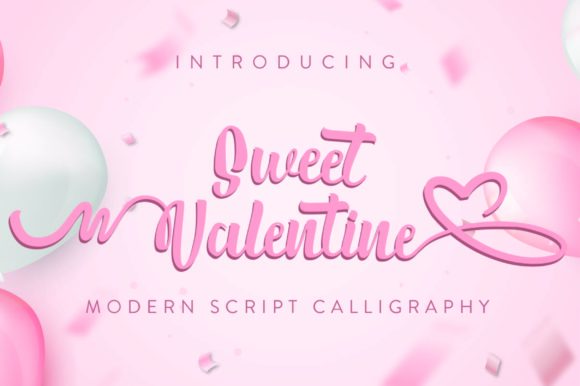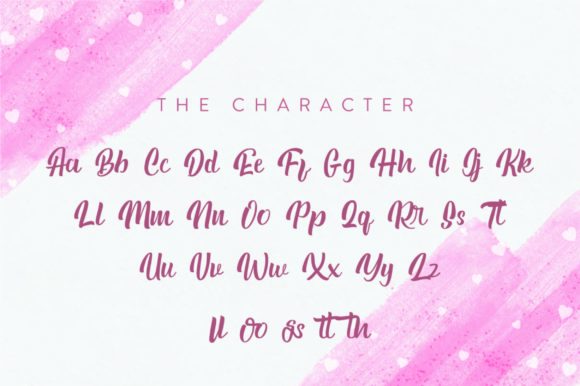
About Sweet Valentine Font
Introducing “Sweet Valentine” – a beautiful and dreamy script font that captures the essence of romance and elegance. With its enchanting design, this font adds a touch of whimsy to various design projects. Whether it’s wedding invitations, thank you cards, weddings, greeting cards, logos, or other personalized designs, “Sweet Valentine” enhances every creation with its stunning and heartfelt style.
The graceful and flowing strokes of “Sweet Valentine” create a sense of beauty and charm in every letter. This font is PUA encoded, allowing easy access to all the glyphs and swashes it offers. With its wide range of decorative elements, “Sweet Valentine” enables you to customize your designs effortlessly, adding a personal and unique touch.
When used on wedding invitations, “Sweet Valentine” sets the perfect tone for a romantic celebration. Its dreamy and delicate appearance adds an air of enchantment, making it an ideal choice for capturing the essence of love and commitment.
Expressing gratitude becomes even more heartfelt with the whimsical touch of “Sweet Valentine.” Thank you cards adorned with this font exude a sense of tenderness and appreciation, creating a memorable and touching experience for the recipient.
For weddings and special events, “Sweet Valentine” adds an extra layer of magic and sophistication. Its dreamy aesthetic complements the atmosphere of joy and celebration, making it perfect for event signage, table cards, and more.
Greeting cards become works of art when adorned with the beauty of “Sweet Valentine.” Its personalized style conveys warmth and sentiment, creating a heartfelt connection between the sender and the recipient.
Logos crafted with “Sweet Valentine” evoke a sense of romance and elegance. This font brings a touch of charm and individuality to brand identities, leaving a lasting impression on customers.
In conclusion, “Sweet Valentine” is a truly captivating and dreamy script font that enhances any design project with its beauty and personal touch. Its PUA encoding allows for easy access to a variety of glyphs and swashes, providing endless possibilities for customization. Whether it’s wedding invitations, thank you cards, weddings, greeting cards, logos, or any other design in need of a personalized style, “Sweet Valentine” will infuse your creations with romance and elegance, creating a truly enchanting experience.